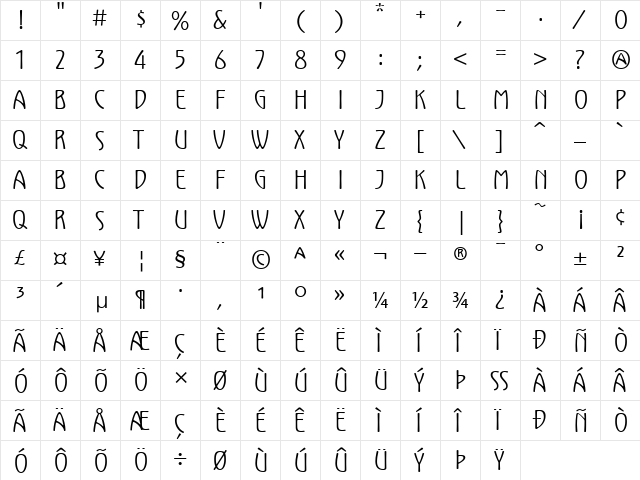
KoloLP-Narrow Roman
Design Context for KoloLP-Narrow Typeface
KoloLP-Narrow is a composed and adaptable typeface that performs quietly and consistently across a wide range of design contexts. Its narrow stance lets it pack a punch even in space-constrained designs.
Pro Tip: Use KoloLP-Narrow in both headline and body roles to test its range before committing to a single application.